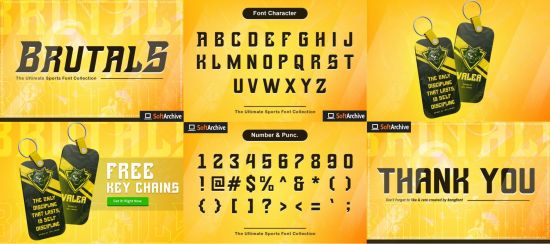
Brutals is a bold and unique display font, perfect for your most favorite sporting events. This font will look outstanding in any context, whether it’s being used on busy backgrounds or as a standalone headline!